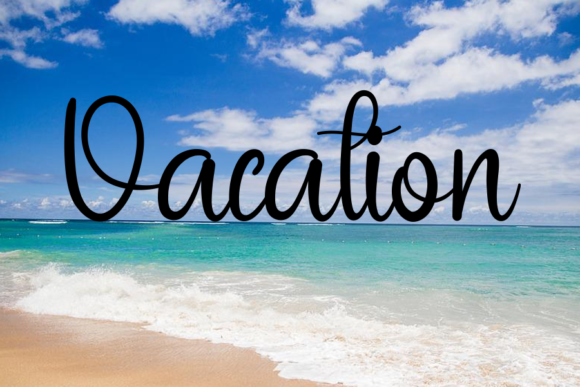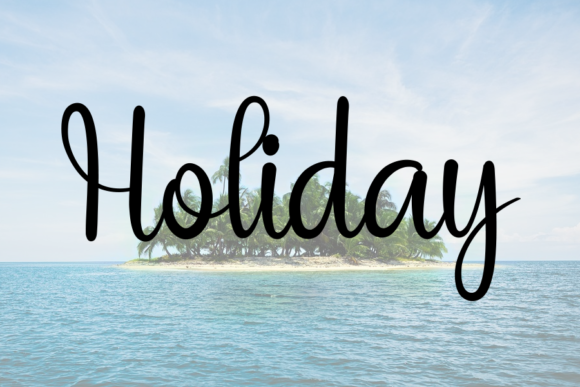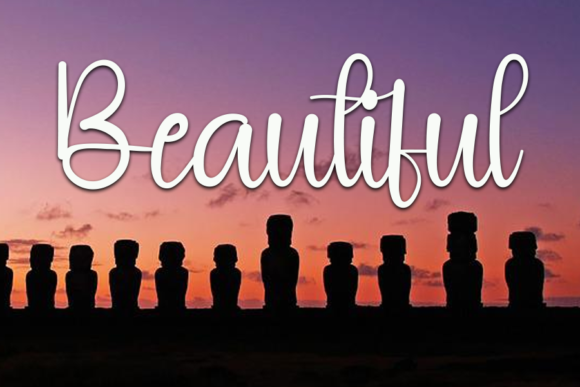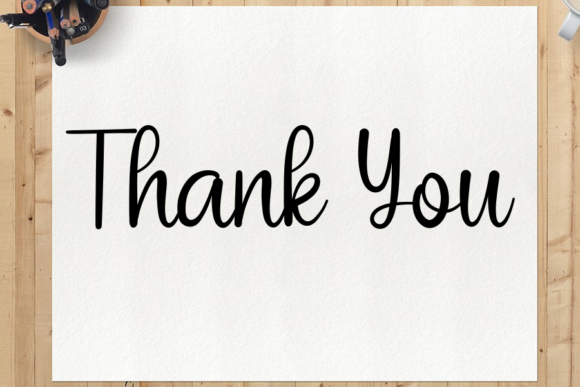
Easter Font: A Sweet and Romantic Script Font for Your Creative Projects
Easter is a beautiful and elegant script font that is perfect for adding a touch of sweetness and romance to your creative projects. This stunning font features chic curves in each letter, making it ideal for a wide range of design applications, from wedding invitations and greeting cards to branding and packaging.
What Makes Easter Font Special?
So, what sets Easter Font apart from other script fonts on the market? For starters, its unique and stylish curves give it a distinctive look that is both modern and sophisticated. Whether you’re looking to create a bold statement or a subtle impression, Easter Font is sure to deliver.
Another key feature of Easter Font is that it is PUA (Private Use Area) coded. This means that you can easily access all the glyphs and sweeps, making it simple to customize and adapt the font to your specific needs. With PUA coding, you can unlock a world of creative possibilities and take your designs to the next level.
Easter Font is a dream come true for designers and crafters who are looking for a beautiful and versatile script font to add to their toolkit. Whether you’re a professional designer or a DIY crafter, this font is easy to use and adaptable to a wide range of projects.
For designers, Easter Font offers a range of possibilities, from creating stunning branding and packaging to designing beautiful wedding invitations and greeting cards. Its elegant curves and sophisticated style make it perfect for clients who are looking for a high-end, luxurious feel.
For crafters, Easter Font is a great choice for anyone who loves to create handmade cards, gift tags, and other paper crafts. Its sweet and romantic style makes it perfect for Easter-themed projects, as well as other spring-inspired crafts.
Tips for Using Easter Font
So, how can you get the most out of Easter Font? Here are a few tips to get you started:
- Experiment with different sizes and styles to find the perfect look for your project.
- Use Easter Font to create beautiful headings and titles that add a touch of elegance to your designs.
- Combine Easter Font with other fonts to create a unique and eye-catching look.
- Don’t be afraid to get creative and try out new and innovative ways to use Easter Font.
In conclusion, Easter Font is a beautiful and versatile script font that is perfect for designers and crafters who are looking for a sweet and romantic style to add to their projects. With its chic curves, PUA coding, and elegant style, this font is sure to become a favorite in your toolkit.
- Font Type: Script
- Font Style: Sweet, Romantic, Elegant
- PUA Coding: Yes
- Language Support: English and other languages that use the Latin script